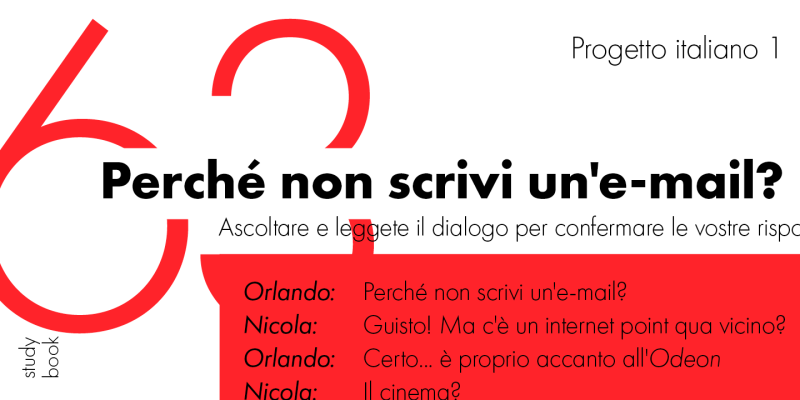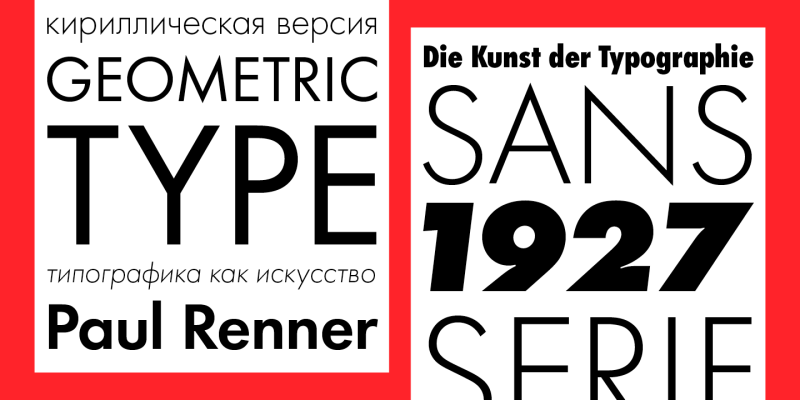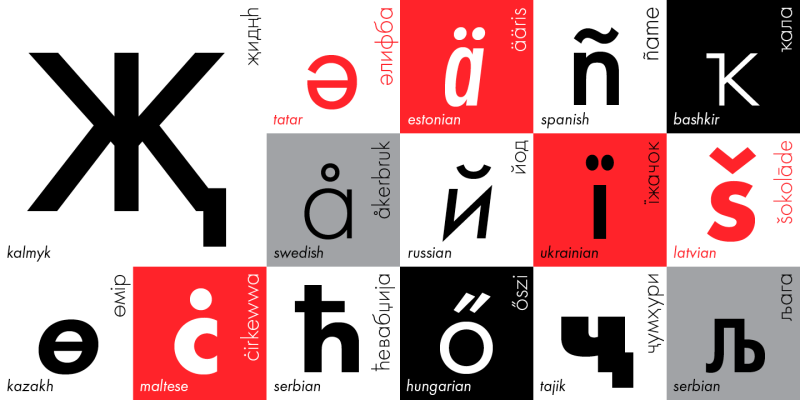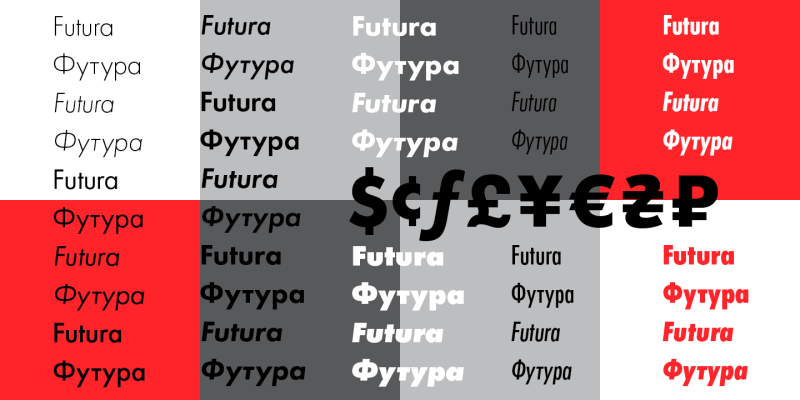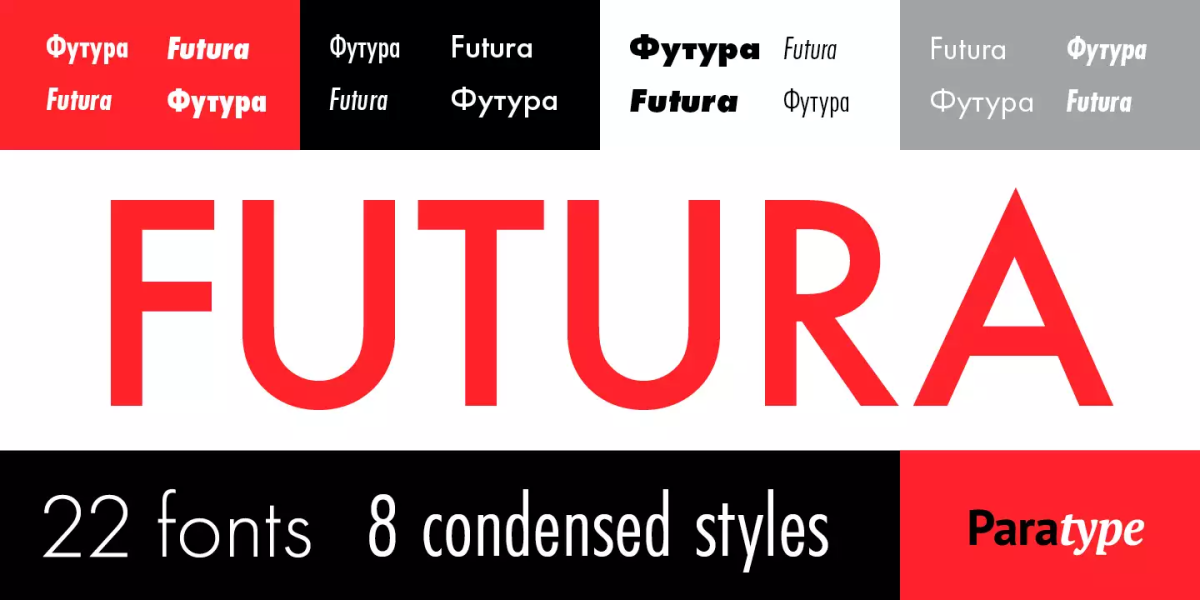
Futura PT Font
Futura PT is a sans-serif font that Paul Renner developed in 1927 for the Bauer firm. It is guided by geometry and conveys the design principle of the Bauhaus school, th…
Futura PT is a sans-serif font that Paul Renner developed in 1927 for the Bauer firm. It is guided by geometry and conveys the design principle of the Bauhaus school, the 1920s-30s. Futura PT gradually became well-known in the publishing industry, and the foundry issued by Bauer became a common setting type used in different weights and widths. In 1995, Vladimir Yefimov cultivated eight styles of Cyrillic for ParaType. In 2007, Isabella Chaeva created additional Cyrillic types and amended the previous eight models to bring uniformity to the whole family. Now, the new Futura is a significantly broadened type system that includes seven weights with the corresponding obliques and eight condensed styles. Here are all these fonts; they are accustomed to one another in uniformity in fonts, metrics, and weights.
The heritage of Futura PT Font began in 1927 when it was carefully designed by a German typographer, Paul Renner, who had worked for the Bauer Type Foundry. Renner’s objective was to establish a typeface that demonstrated the modern design principles of the early twentieth century and expressed technical progress in industrialization.
Futura, in turn, spearheaded the revolution of the fonts with intricate ornaments and lived on the embellished fonts. Renner’s design had verticals, a particularly influential example of a sans-serif typeface. This was an innovation in typographic style. It was quite a good fit for the simple and functional geometric Bauhaus school of thought.
Primarily meant by Bauer Type Foundry designers and typographers, the Futura was soon widely adopted by them due to its broad application lines and modern look. Its straight lines and compact style made it a universal tool, and it could be used in prints for displays or as books and magazines.
Over the years, Futura has been renewed and developed to fit the changing times and meet the needs of rising design trends and emerging technology. In 1995, Vladimir Yefimov created the Futura Cyrillic font for ParaType (formerly ParaGraph). Now, eight styles of this font are available, extending Futura’s global reach. However, many small and large changes were made, and Isabella Chaeva designed some new styles of Cyrillic in 2007 to ensure consistency and compatibility across different languages.
The summary of the Futura PT font plays an essential role in design projects. It sets the mood, communicates the message, and enhances the beauty of the layout. The typeface Futura PT is a contemporary and popular choice among designers.
Futura PT became a font favored by designers because of its geometric, sleek, and classic appearance. The article will comprise insights into Futura PT Font’s background, features, adaptability, and practical application in different design scenarios. The Origins of Futura PT Font: Paul Renner, a famous German typographer, made the Futura PT font for the first time in the latter part of the 1920s.
Category Metric Design Font family: Futura PT Designer: Paul Renner Year created: 1927 Classification: Geometric sans-serif Weights: 22 Styles: Regular, Bold, Light, Medium, Heavy, Extra Bold, Condensed, Extra Condensed, Demi, Demi Condensed, Demi Italic, Book, Book Italic, Medium Italic, Heavy Italic, Extra Bold Italic, Condensed Italic, Extra Condensed Italic, Demi Italic Condensed, Demi Italic Extra Condensed, and Demi Italic Extended Usage Popular in: Advertising, branding, editorial design, web design, and packaging Notable brands that use Futura PT: Volkswagen, Absolut Vodka, Domino’s Pizza, and Louis Vuitton Can be used for: Headlines, subheadings, body text, and logos Characteristics Modern, clean, and minimalistic Distinctive features: Circular shapes, geometric proportions, and absence of serifs Easy to read and legible at small sizes Can convey a sense of sophistication and eleganceFirst, it looks more open and modern and great in contemporary interior design. It is not unusual for Futura PT Font to be likened to other widely used and popular typefaces, such as Helvetica and Arial. All these fonts have a similar contemporary stylish character, with Futura PT Font marked with its exceptional geometric quality.
Designers looking for more edgy and distinguishable styles usually prefer it because of the more pronounced geometric construction compared to Helvetica and Arial. The varying Applications of Futura PT Font is one of the factors that enhances its popularity among the designers. It can be used and easily adapted to various projects due to its adaptability to different design contexts. The capacity of the Futura PT font to deliver outstanding design in print, web, graphic, branding, or identification works is high. Futura PT Style often goes into creating minimalistic, up-to-the-minute visuals.
It is the best option for the header, subheading, or body text, mainly due to its clarity and simplicity. A font based on a multifaceted geometric design that juxtaposes typographic forms and visual hierarchy can distribute space in various ways. Web designers will appreciate Futura PT Font’s high adaptability.
It is an excellent option for digital platforms due to its clear lines and legibility. Humanizing the sentence: The Futura PT Font optimizes the user experience by providing visually enticing and easily understandable content for website headers, navigation menus, and body text. The Futura PT Font can also be a handy tool for print designers. Due to its looks and ease of reading, it is versatile and can be used for diverse print materials, such as magazines, posters, and brochures.
Where Futura PT Font works best
Futura PT Font stays legible at small sizes, which makes it a strong choice for navigation, buttons and dashboards in web design and app interfaces.